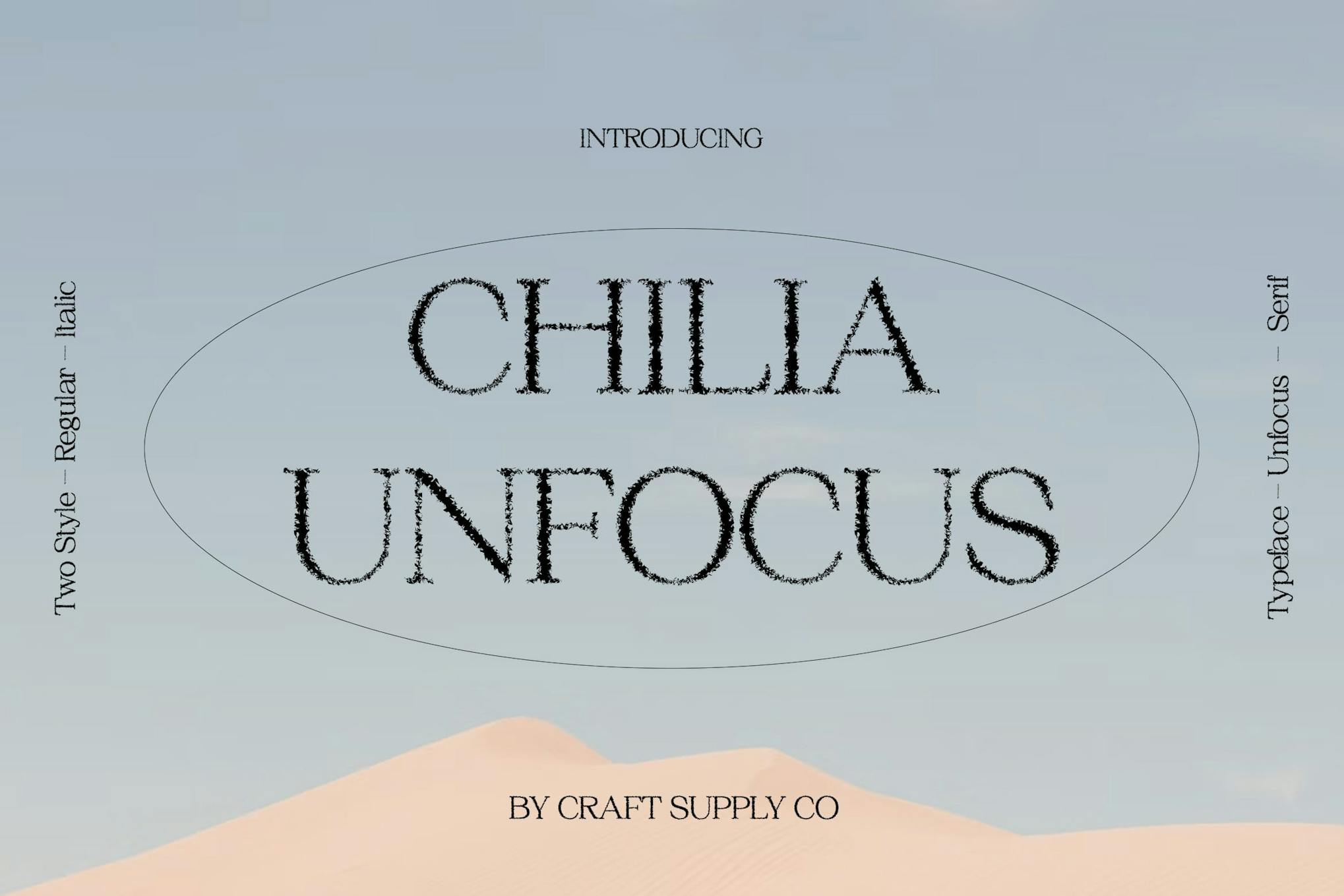
Chilia Unfocus Font
Chilia Unfocus Font chills across frozen landscape photography exhibitions, winter resort branding, arctic expedition documentaries, ice sculpture festival promotions, cold therapy wellness centers, winter sports event graphics, frozen beverage packaging, alpine skiing lodge materials, ice hotel marketing campaigns, polar wildlife conservation materials, winter fashion collections, and cool lifestyle brands where arctic chill and atmospheric unfocus create refreshing polar experiences.
This cooling typeface generates excitement through its perfect embodiment of arctic tranquility and polar serenity that creates typography channeling the peaceful silence of snow-covered landscapes and the refreshing clarity of winter atmospheres. Chilia Unfocus Font captures the essence of polar calm with its crystalline-soft letterforms that suggest the gentle blur of snowfall and the ethereal quality of arctic mist dancing across frozen terrain. The font's crystalline design approach incorporates elements that evoke ice formation, polar wind patterns, and the meditative stillness found in winter's embrace. Its distinctive character reflects the purity, clarity, and refreshing peace that define authentic arctic environments and winter wellness experiences.
The Chilia Unfocus Font family encompasses multiple arctic variations including Regular, Light, Medium, Bold, and Frozen versions, each maintaining the font's characteristic polar serenity while offering different levels of cooling impact. The collection features ice-crystal blur effects, polar atmospheric treatments, and frozen textures that enhance its arctic aesthetic. Additional elements include snowflake ornaments, ice crystal symbols, polar decorative borders, and winter flourishes that reinforce the font's connection to arctic environments and cooling wellness practices.
Winter wellness brands and polar tourism organizations consistently select Chilia Unfocus Font Free Download for projects requiring typography that communicates arctic tranquility and cooling therapeutic benefits. This remarkable typeface excels in applications where creating refreshing emotional states and conveying polar authenticity are essential for seasonal and wellness success. The font's arctic qualities make it particularly effective for winter resorts, cooling therapy centers, and polar adventure companies targeting audiences who appreciate arctic beauty and winter wellness experiences.
Whether you're designing winter resort identities, creating polar expedition materials, developing cooling wellness campaigns, or crafting arctic-inspired communications, Chilia Unfocus Font delivers unmatched polar authenticity. Its ability to convey arctic tranquility, cooling refreshment, and polar serenity makes it invaluable for winter brands seeking typography that genuinely captures the peaceful essence of arctic environments. The font's crystalline presence ensures your designs will communicate the refreshing clarity and polar tranquility that define exceptional winter communications and arctic wellness experiences.